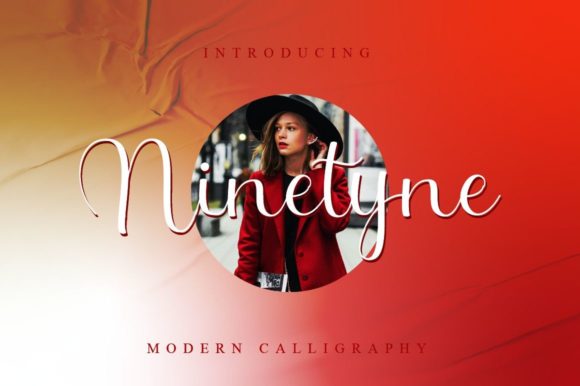
Introducing Ninetyne Font, the script font that will add a touch of elegance and beauty to your designs. This captivating font is perfect for those looking to create stunning invitations, logos, or any other project that requires a sophisticated and stylish touch.
Ninetyne Font is meticulously crafted, with each letter flowing seamlessly into the next. The result is a font that is both easy to read and visually appealing. Whether you're a seasoned designer or just starting out, Ninetyne Font is sure to become a favorite in your collection.
But what sets Ninetyne Font apart from other script fonts? It's all in the details. The subtle curves and delicate flourishes give this font a unique personality that will make your designs stand out from the crowd.
So if you're looking for a script font that is both beautiful and versatile, look no further than Ninetyne Font. This font is perfect for a wide range of projects, and it's sure to add a touch of elegance and sophistication to your work.